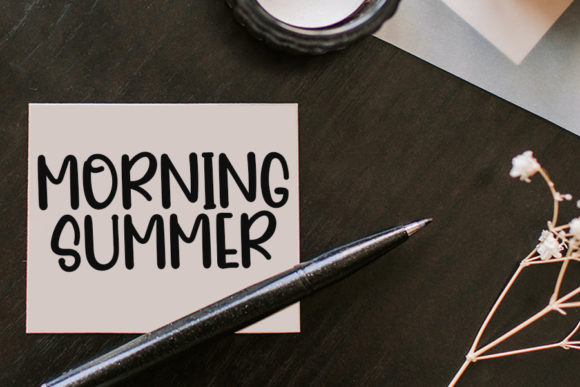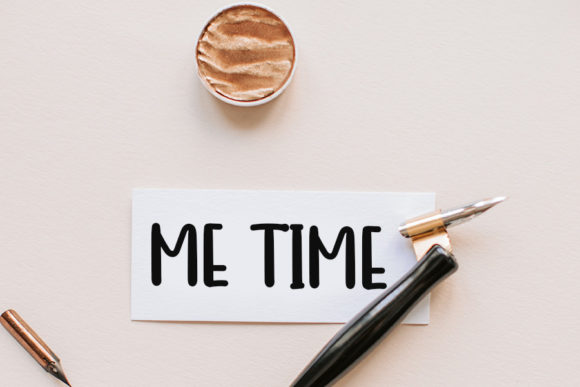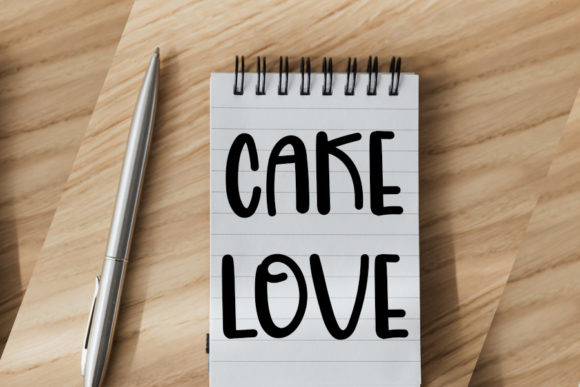
About Summer Paradise Font
Summer Paradise is a gorgeous handwritten font that embodies the essence of relaxation and timelessness. With its effortless and versatile styles, this font is the perfect choice for creating stunning crafting projects.
The relaxed nature of Summer Paradise brings a sense of ease and tranquility to your typographic compositions. Its flowing letterforms and loose strokes contribute to a visually pleasing and laid-back aesthetic. Whether you’re working on scrapbooking, card-making, DIY projects, or any other crafting endeavor, Summer Paradise font enhances the overall visual appeal with its relaxed and timeless demeanor.
Using Summer Paradise font allows you to infuse your crafting projects with a touch of beauty and elegance. Its handwritten appearance adds a personal and organic touch, making your designs feel authentic and inviting. This font brings a sense of carefree spirit and creativity to your creations, making them visually captivating and appealing to a wide range of audiences.
The timeless styles of Summer Paradise make it a versatile choice for various crafting projects. Its effortless and versatile character blends seamlessly with different themes and styles, allowing you to create stunning compositions that stand the test of time.
Incorporating Summer Paradise into your crafting projects empowers you to create beautiful and enchanting designs. Its gorgeous handwritten font adds a touch of elegance and enhances the overall visual impact of your creations.
In summary, Summer Paradise is a gorgeous handwritten font that inspires relaxation and timelessness. Its effortless and versatile styles make it the best choice for creating stunning crafting projects. Embrace the beauty of Summer Paradise font and let it enhance your designs with its relaxed and timeless presence, making your crafting projects truly enchanting and captivating.